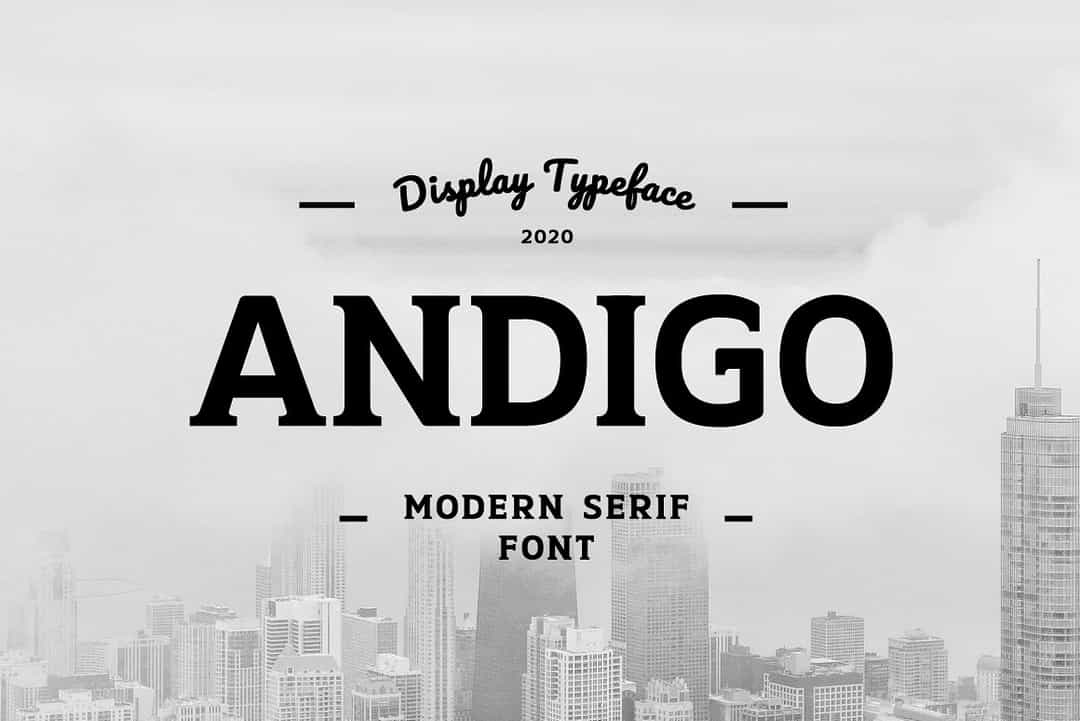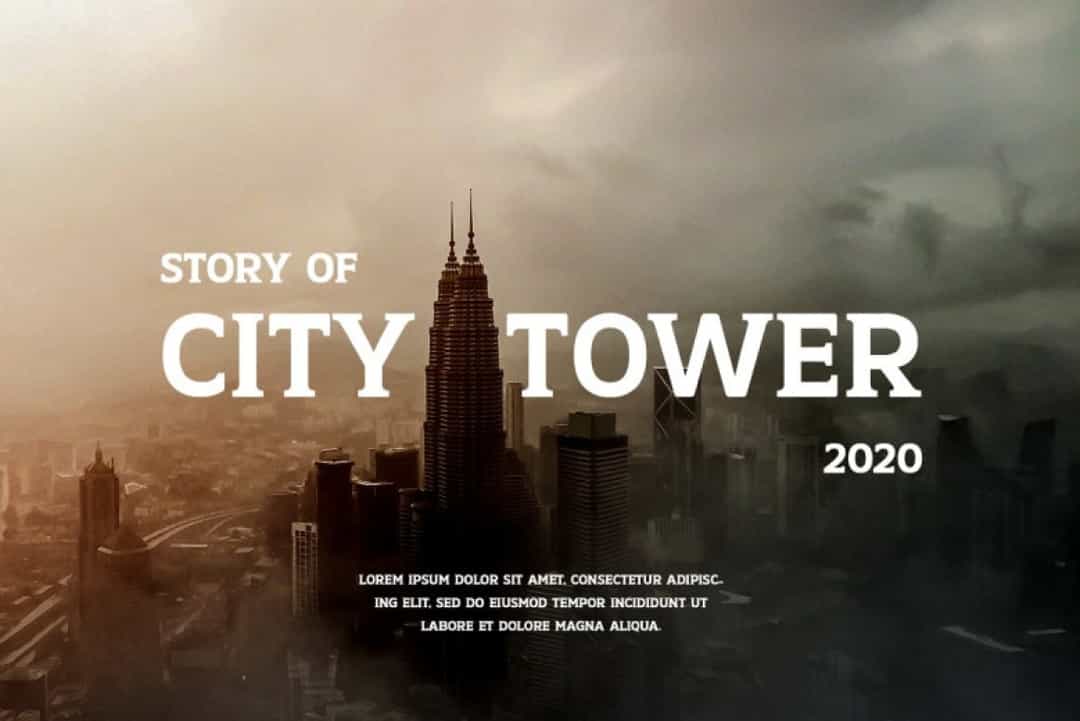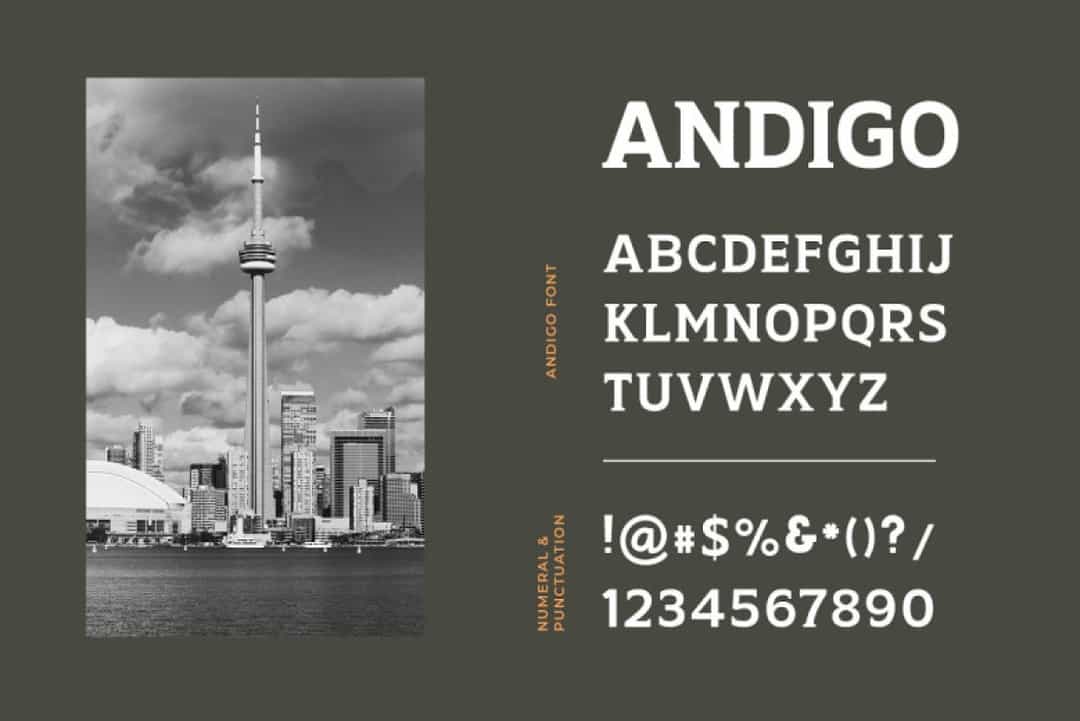
Andigo is a serif font that blends traditional style fonts with minimalist designs for elegant and beautiful fonts, complete with ligatures and other font alternatives with every character included to help you discover your personal style more readily by including different styles that can be used for logos cover designs, posters primary packaging designs t-shirt wedding cards business cards etc. So don’t wait any longer – start using Andigo today!